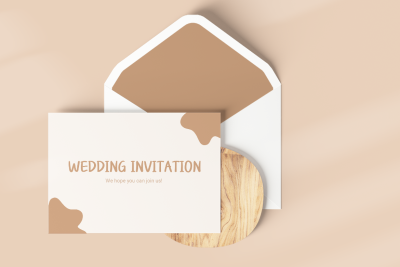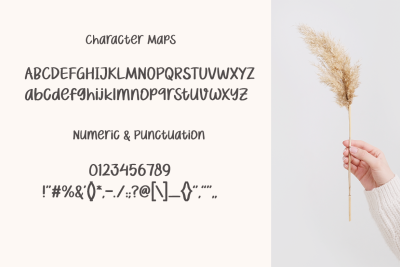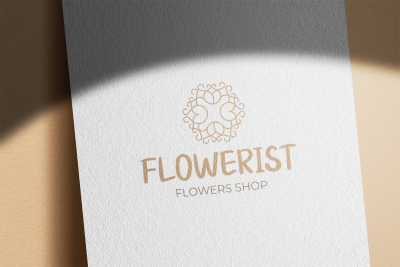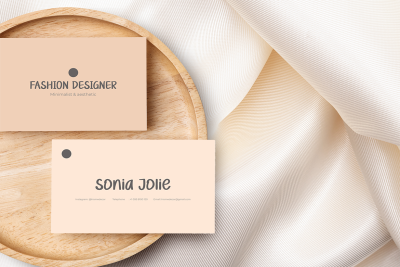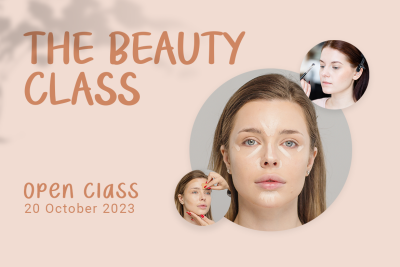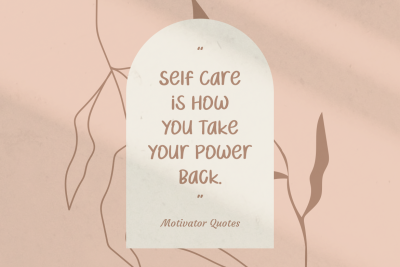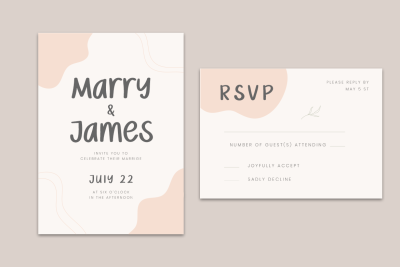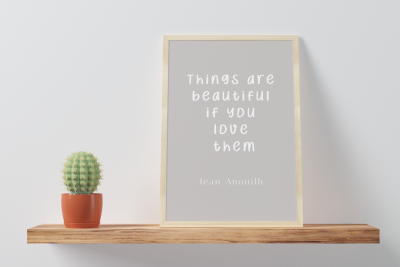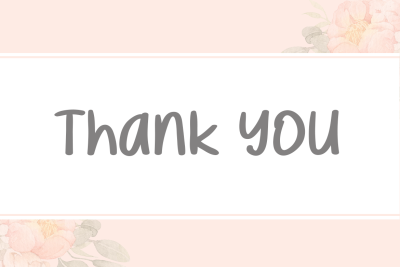
Handwriting Font Eliana is a stylish, modern, and elegant handwritten typeface designed to bring warmth and personality to your creative projects. With its soft, rounded strokes and carefully crafted letterforms, this font embodies a feminine yet contemporary appeal. Therefore, it is a perfect choice for those looking for a handwritten touch with a refined aesthetic. Inspired by natural handwriting, Eliana blends casual charm with sophistication, resulting in a font that is both approachable and professional.
Designed with smooth curves and a balanced structure, Eliana is highly versatile and readable. Whether you’re creating branding materials, social media content, invitations, or editorial designs, this font ensures a seamless and polished look. Furthermore, its organic flow gives text a natural rhythm, making it ideal for projects that need to convey warmth and elegance. Additionally, the fontโs modern yet friendly vibe makes it an excellent option for both personal and business-related designs.
Handwriting Font Eliana Suitable For
Handwriting Font Eliana is an excellent choice for designers, entrepreneurs, and content creators who want to add a soft and feminine touch to their work. Specifically, this font is particularly well-suited for:
- Branding and Logo Design โ Perfect for beauty brands, fashion labels, and boutique businesses seeking a stylish and personal touch.
- Wedding Invitations and Stationery โ It enhances invitations, save-the-dates, and greeting cards with an elegant handwritten feel.
- Social Media and Influencers โ Ideal for Instagram posts, Pinterest graphics, and YouTube thumbnails that require a modern yet organic aesthetic.
- Product Packaging and Labels โ Suited for handmade products, cosmetics, and artisanal packaging that need a warm and inviting look.
- Creative Marketing Materials โ Works beautifully for promotional materials, flyers, and business cards that require an elegant yet friendly appeal.
- Personal Projects and DIY Creations โ Great for journaling, scrapbooking, and crafting projects that need a soft, handwritten touch.
As a result, Handwriting Font Eliana seamlessly blends charm, modernity, and elegance, making it a must-have for anyone looking to elevate their designs. Whether for business or personal use, this font provides the perfect balance of sophistication and warmth. Ultimately, elevate your typography with Handwriting Font Eliana and let your creativity shine effortlessly.